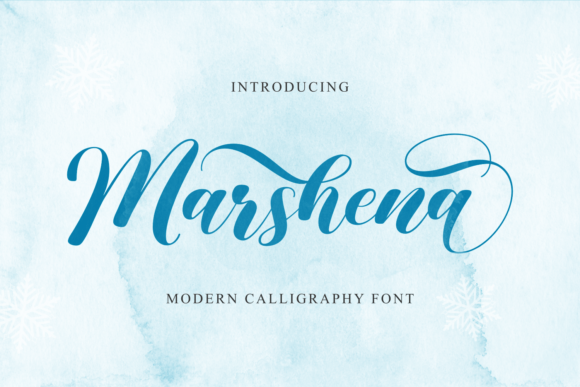
Sneak a peek at our newly added Marshena Font collection, a breathtaking masterpiece designed to make your creative ambitions soar. Unleash your artistic flair and indulge in the allure of handwritten typography that captivates hearts.
Indulge in the whimsical charm of Marshena, a script font that exudes romance and elegance. Its exquisite curves and delicate flourishes elevate your designs to dizzying heights. Whether you're crafting exquisite wedding invitations or heartfelt birthday cards, this font adds a touch of sophistication that leaves a lasting impression.
Dive into a world where your imagination knows no bounds. Marshena Font is not just a collection of characters; it's a gateway to expressing your deepest emotions and sharing your most heartfelt stories. Let your creativity run wild as you explore endless possibilities with this font.